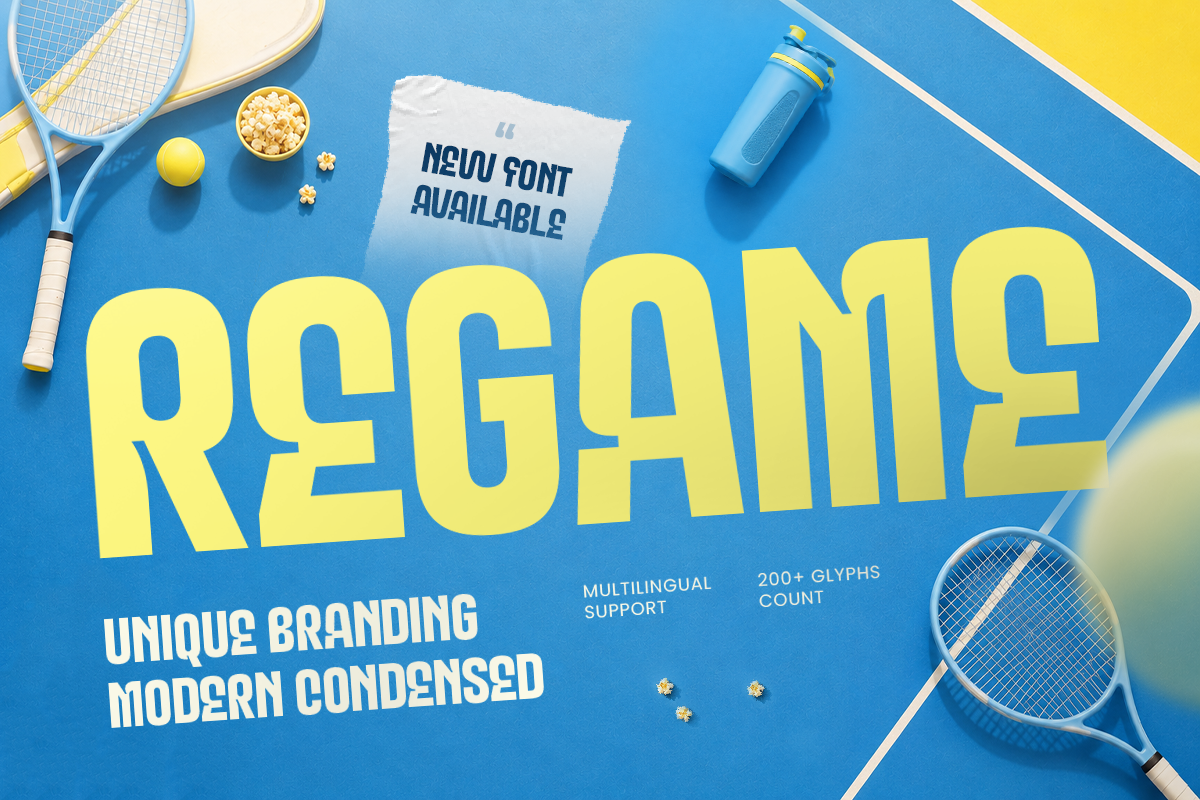
Regame
-Unique Branding Modern Condensed Font
Regame
REGAME – Unique Branding Modern Condensed Font
REGAME is a unique branding modern condensed font designed with a strong visual presence and contemporary character. Featuring sleek proportions, balanced spacing, and a bold condensed structure, REGAME creates a confident and memorable look for modern brands, creative projects, and professional identities.
Perfect for logo design, brand identity, packaging, posters, headlines, social media graphics, and editorial layouts, REGAME delivers a stylish and versatile appearance. Its condensed letterforms help create powerful compositions while maintaining excellent readability across digital and print applications.
Inspired by modern branding trends and minimalist typography, REGAME brings a distinctive personality to businesses, lifestyle brands, fashion projects, and creative campaigns. This modern condensed font is built for designers who need a clean yet unique typeface that stands out.
REGAME – Unique Branding Modern Condensed Font Features
• Unique condensed letterforms with modern branding style
• Strong visual impact for logos and headlines
• Perfect for branding, packaging, posters, and signage
• Clean structure with excellent readability
• Great for digital and print design projects
• OpenType features for creative flexibility
Elevate your visual identity with REGAME – a modern condensed font designed for bold and memorable branding. ✨